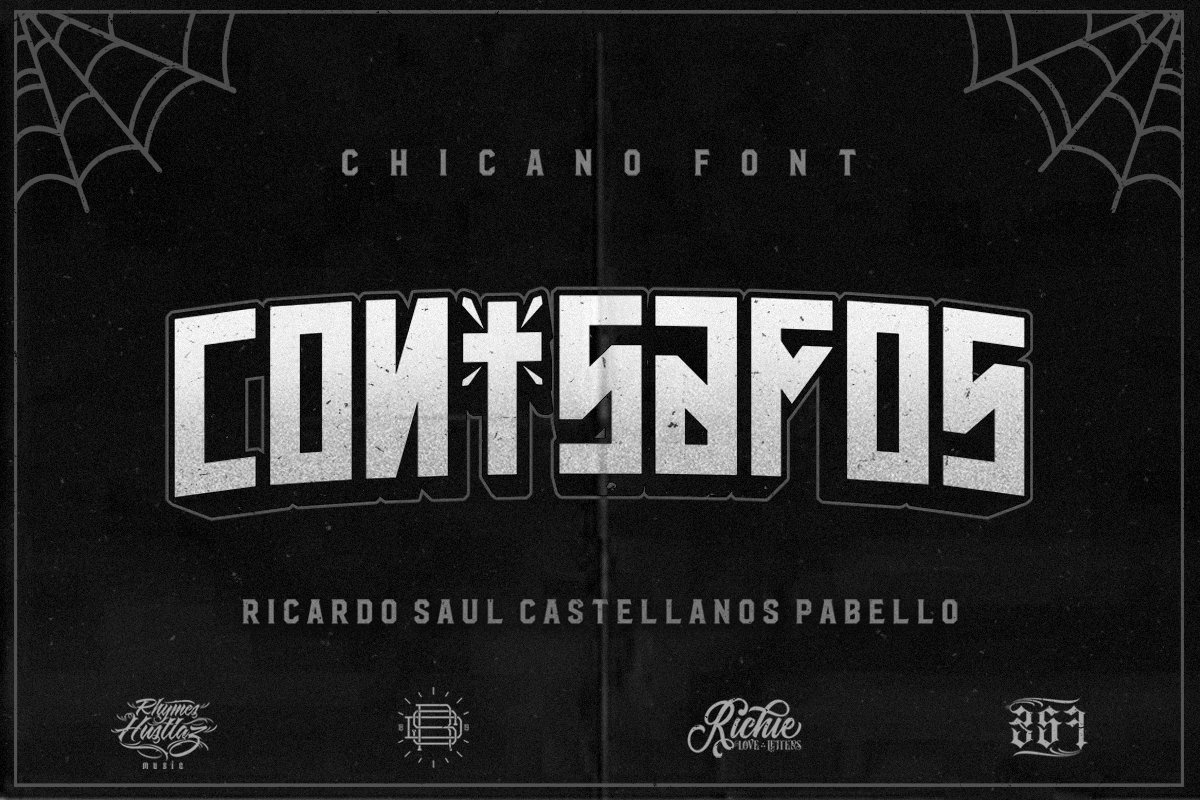
Con Safos” is a typeface inspired by the style of the letters of the Chicano culture, created by Ricardo Saul Castellanos Pabello “Richie Mx” in the design studio “Riders on the Storm Design.
Con Safos” it is a Chicano term that literally means “with respect”. and in some translations it is meant to convey the message that any insult sent to him slips.